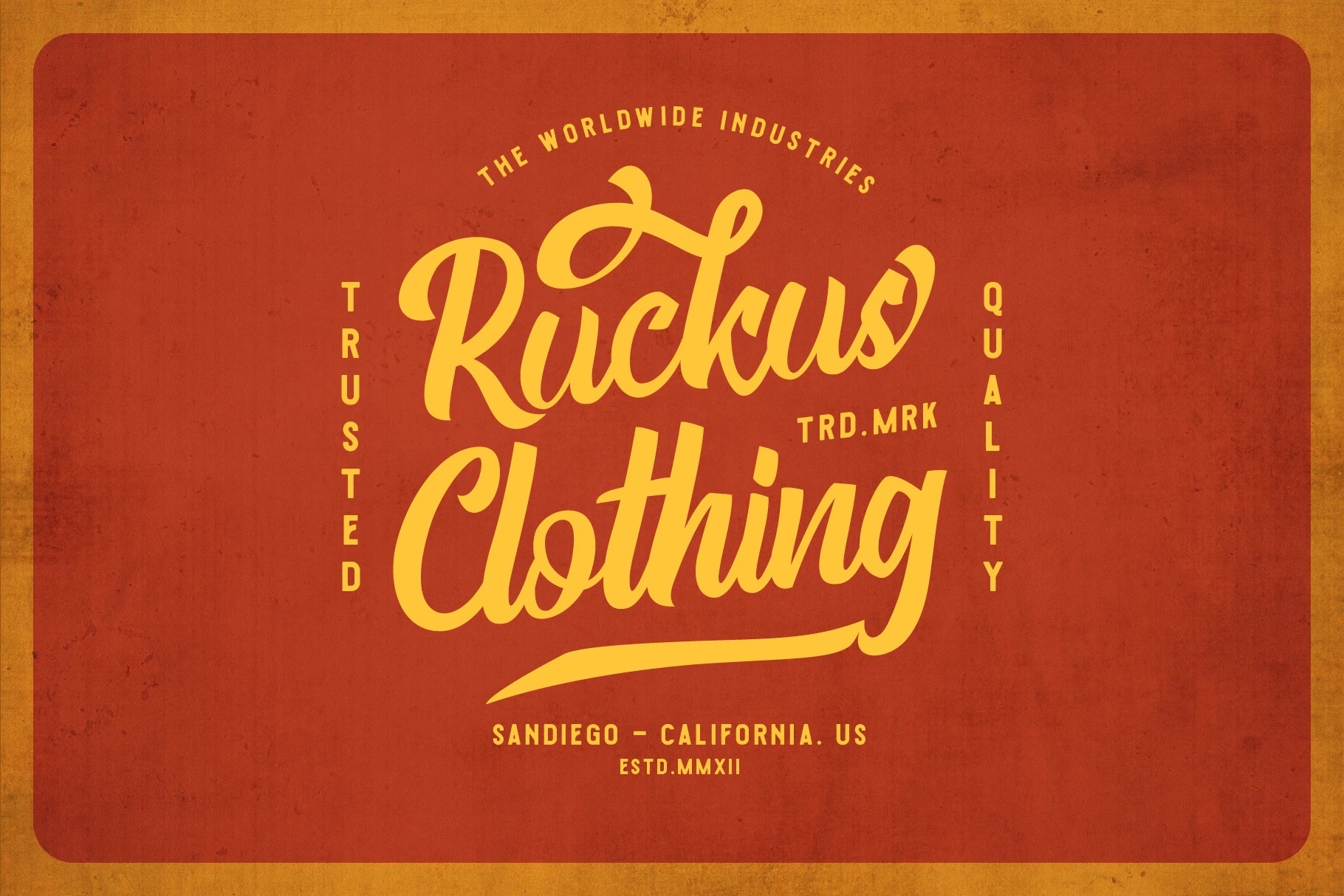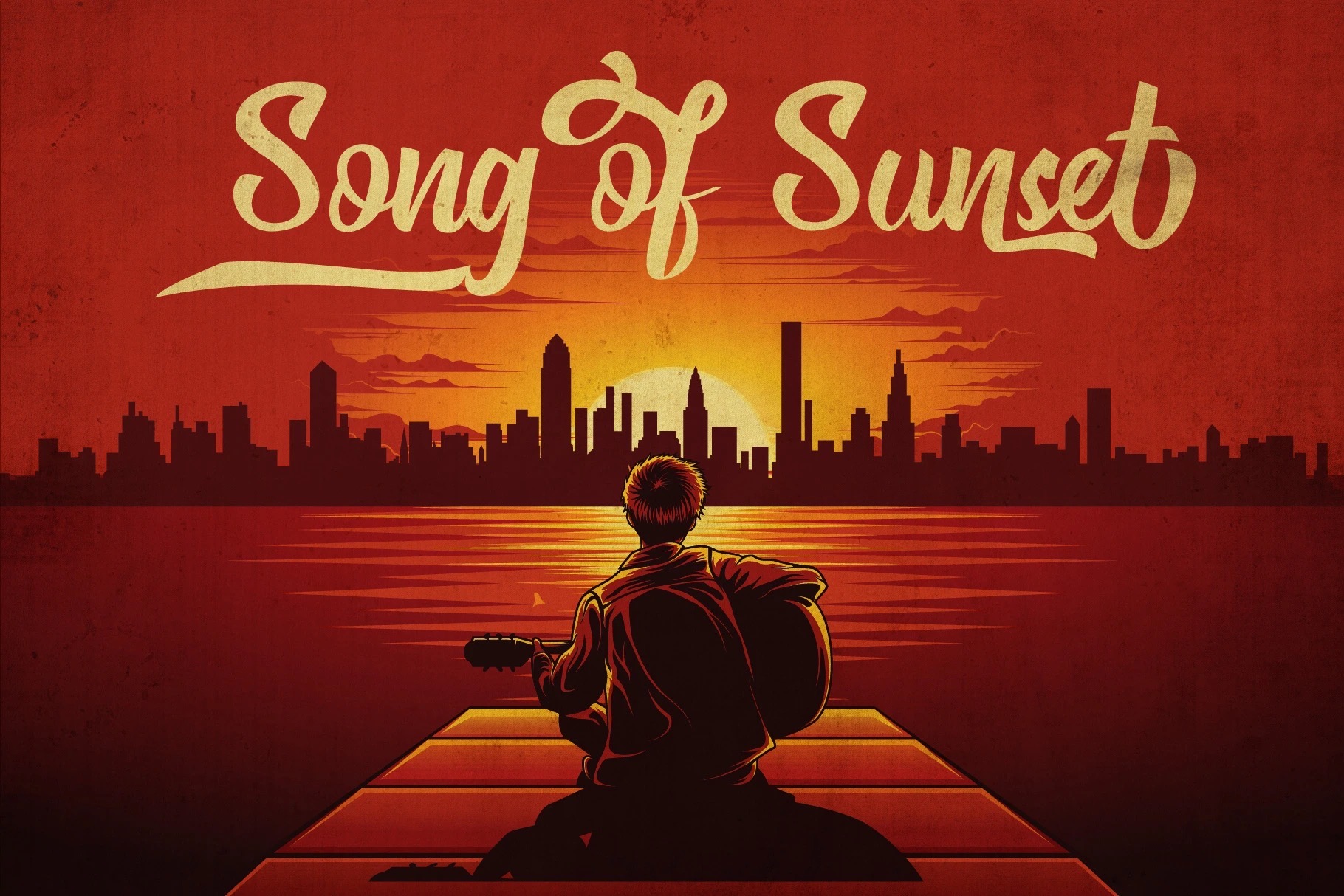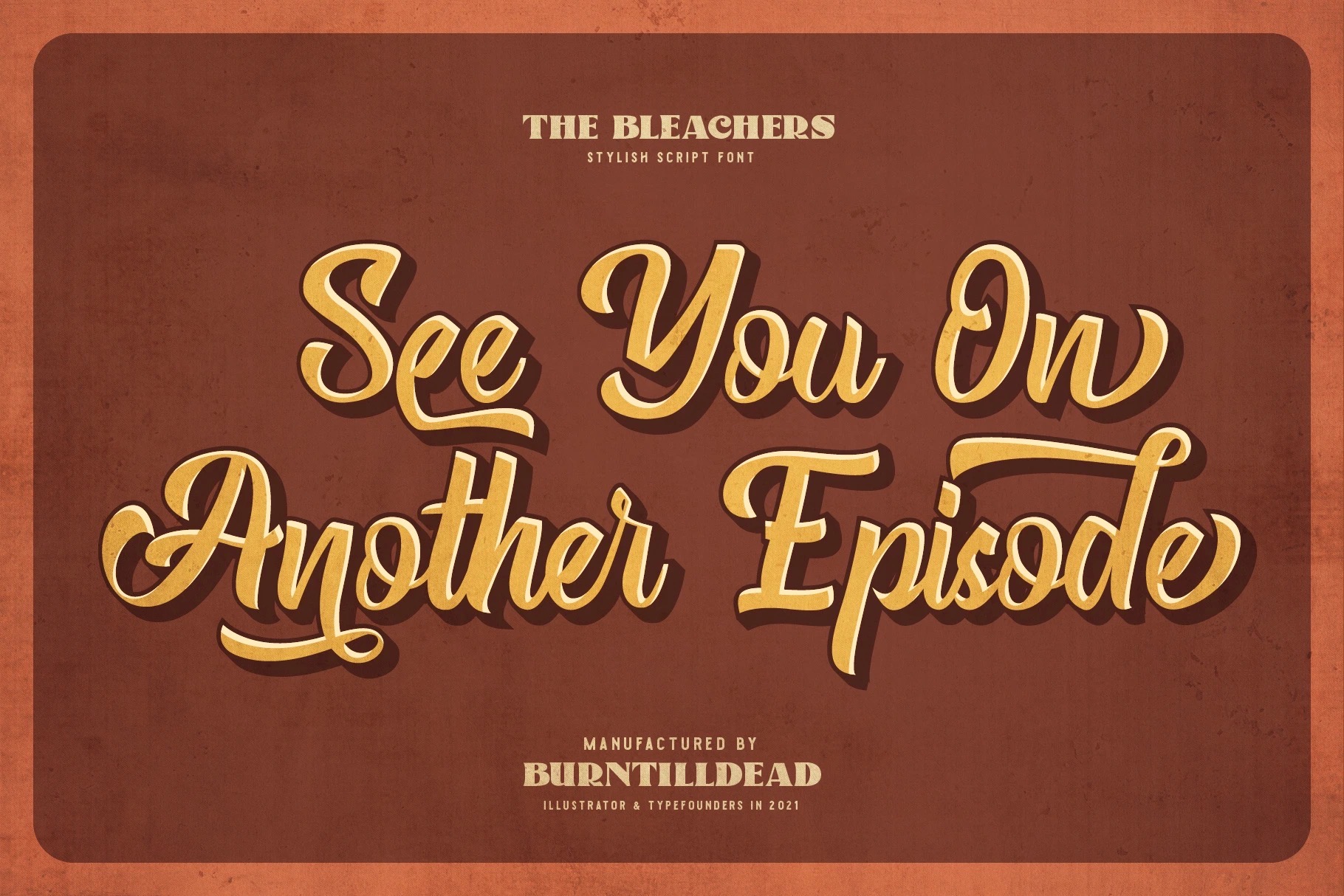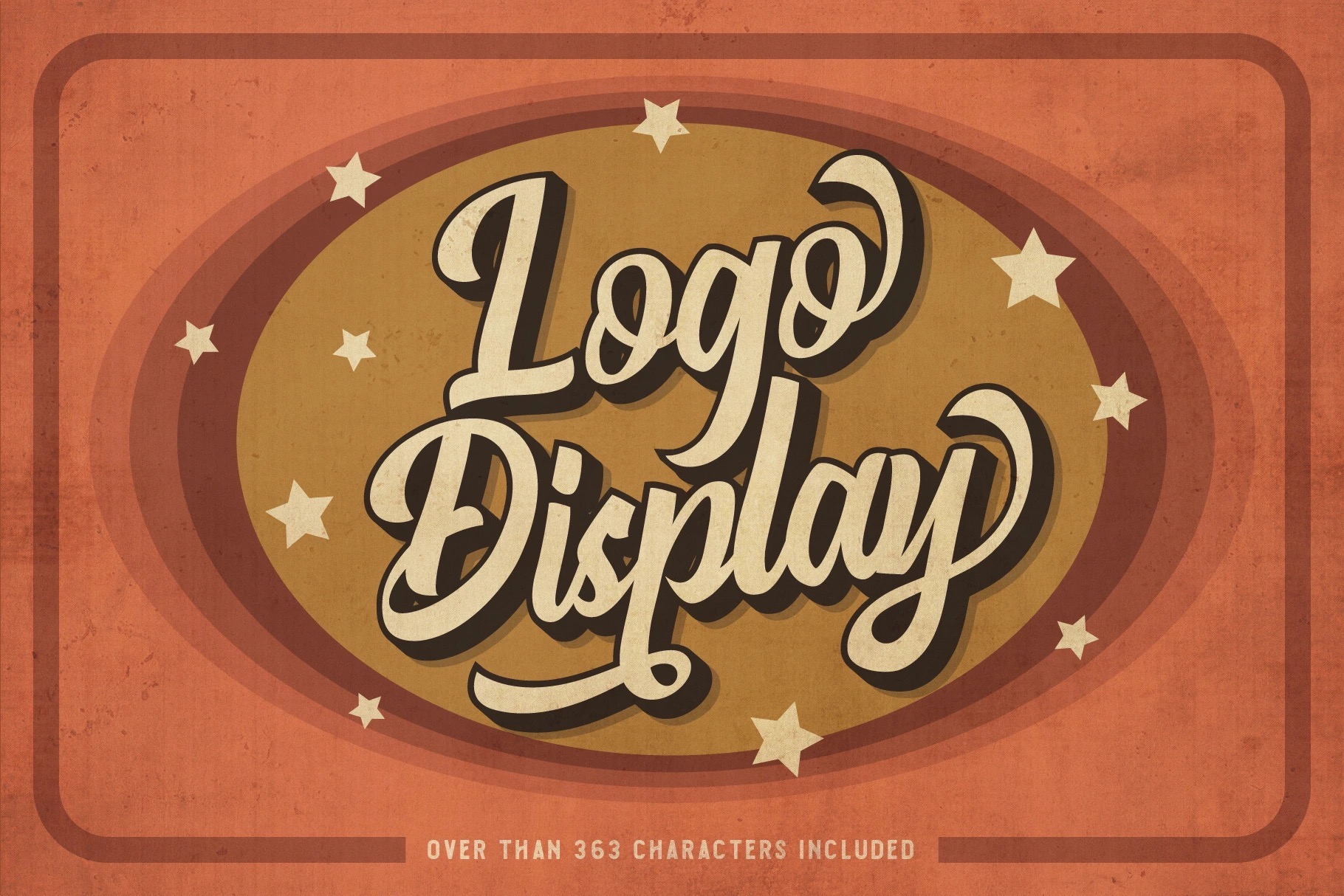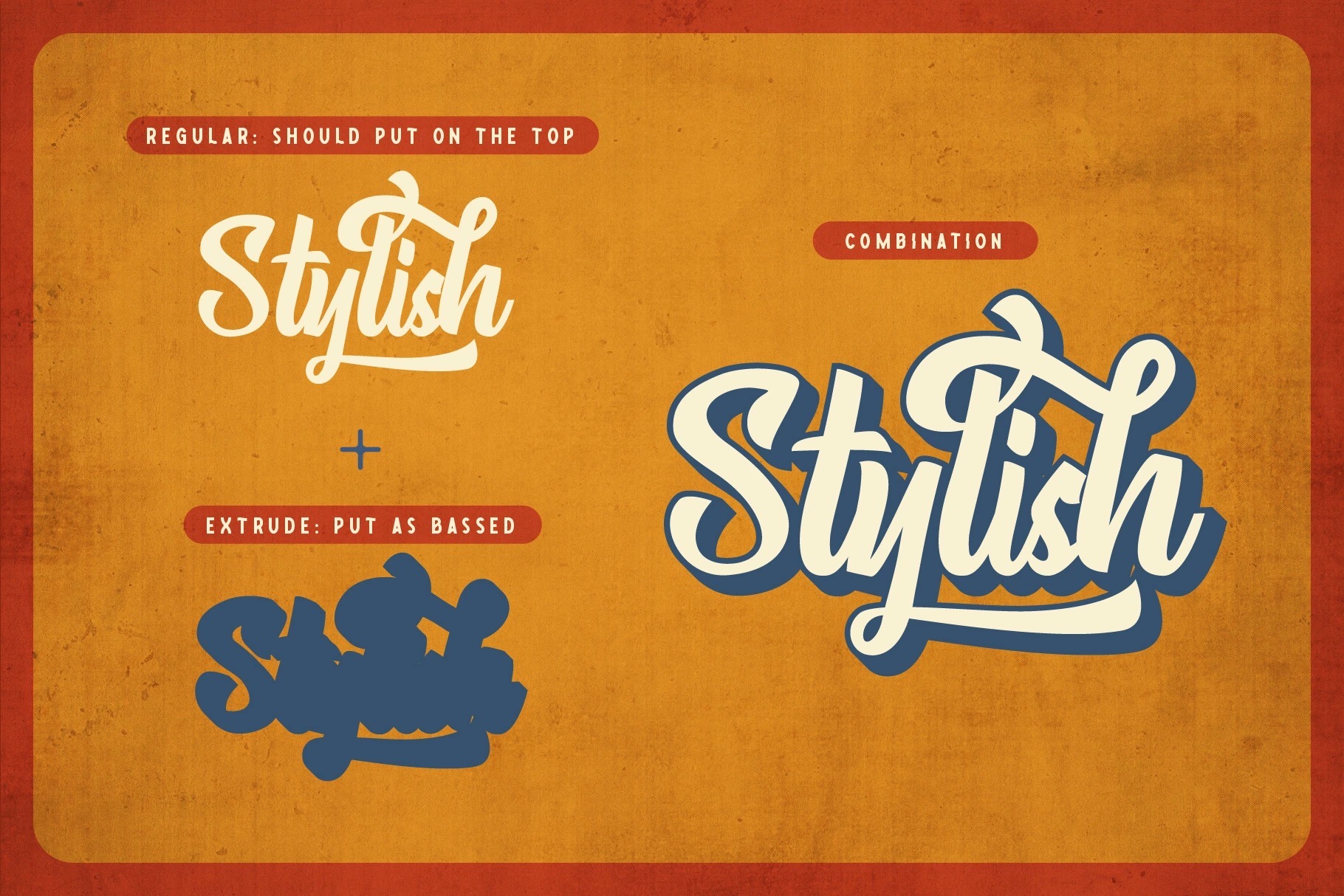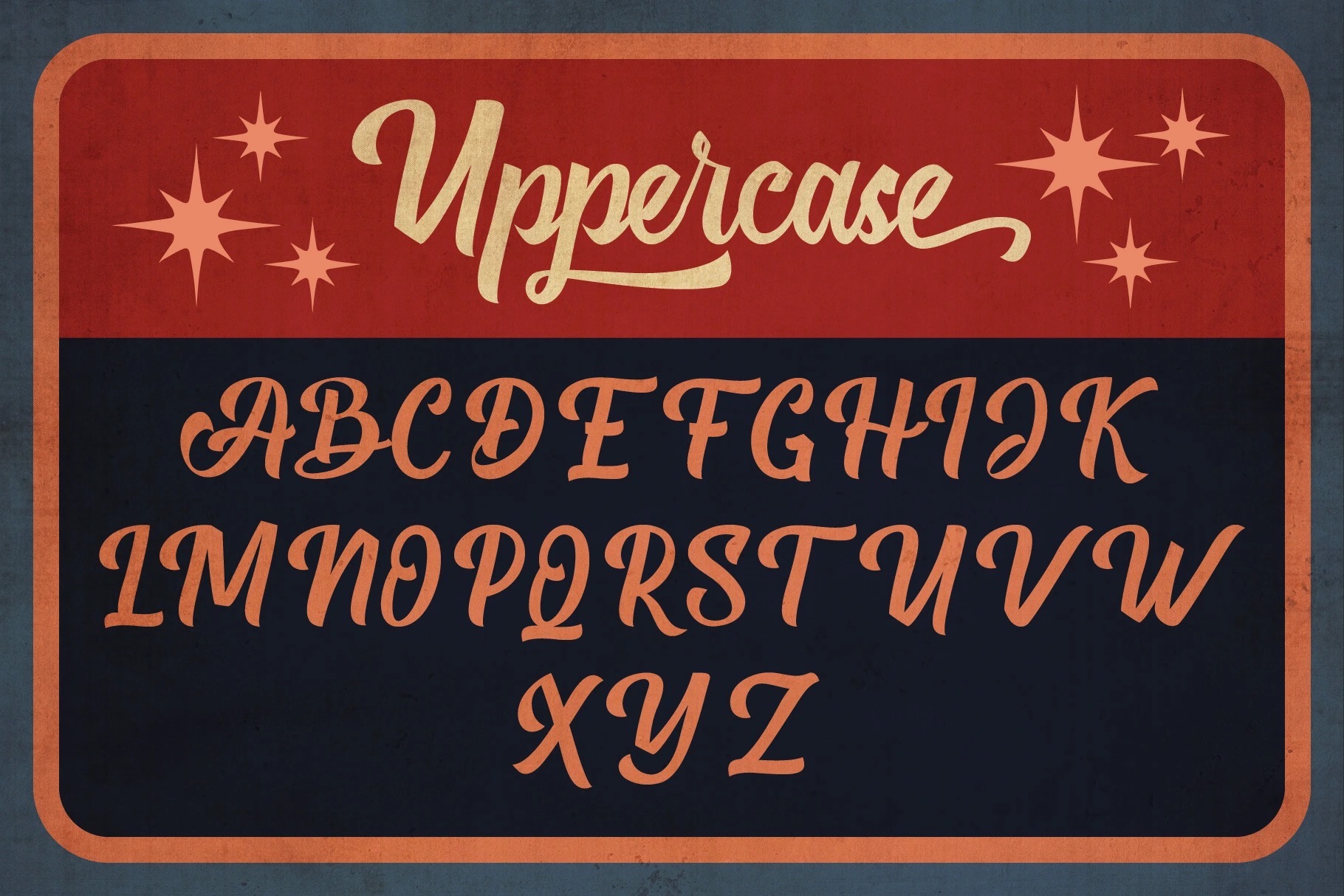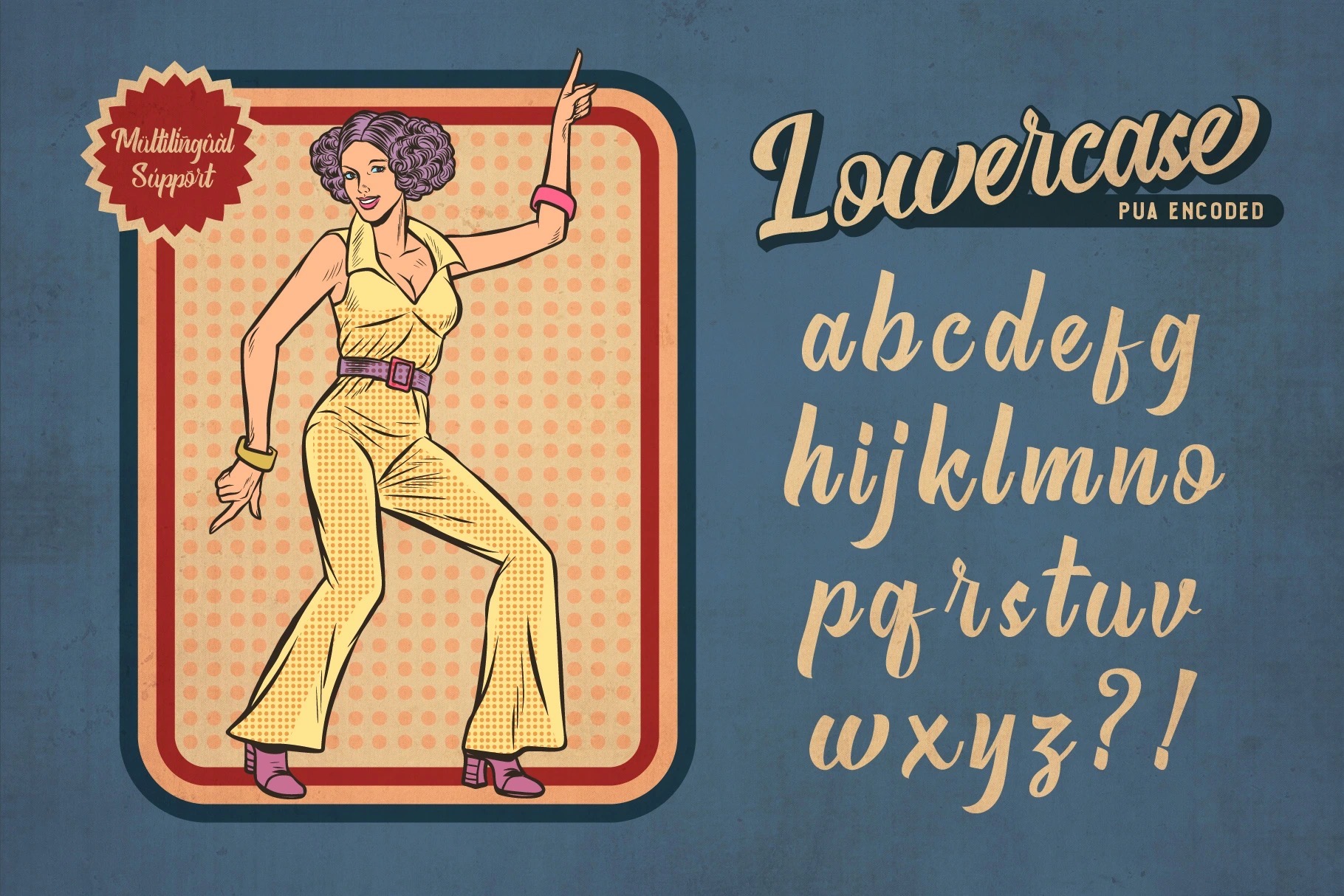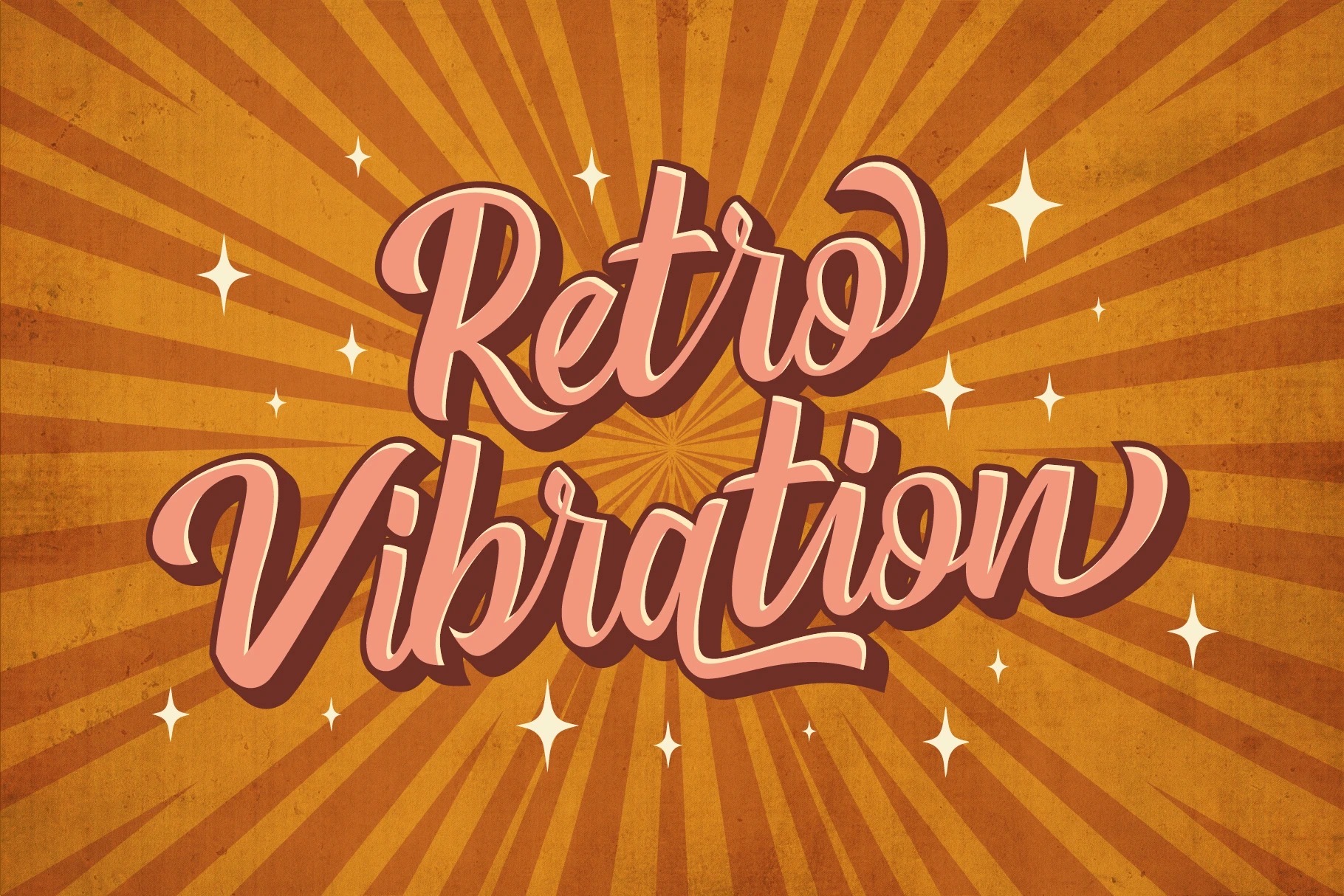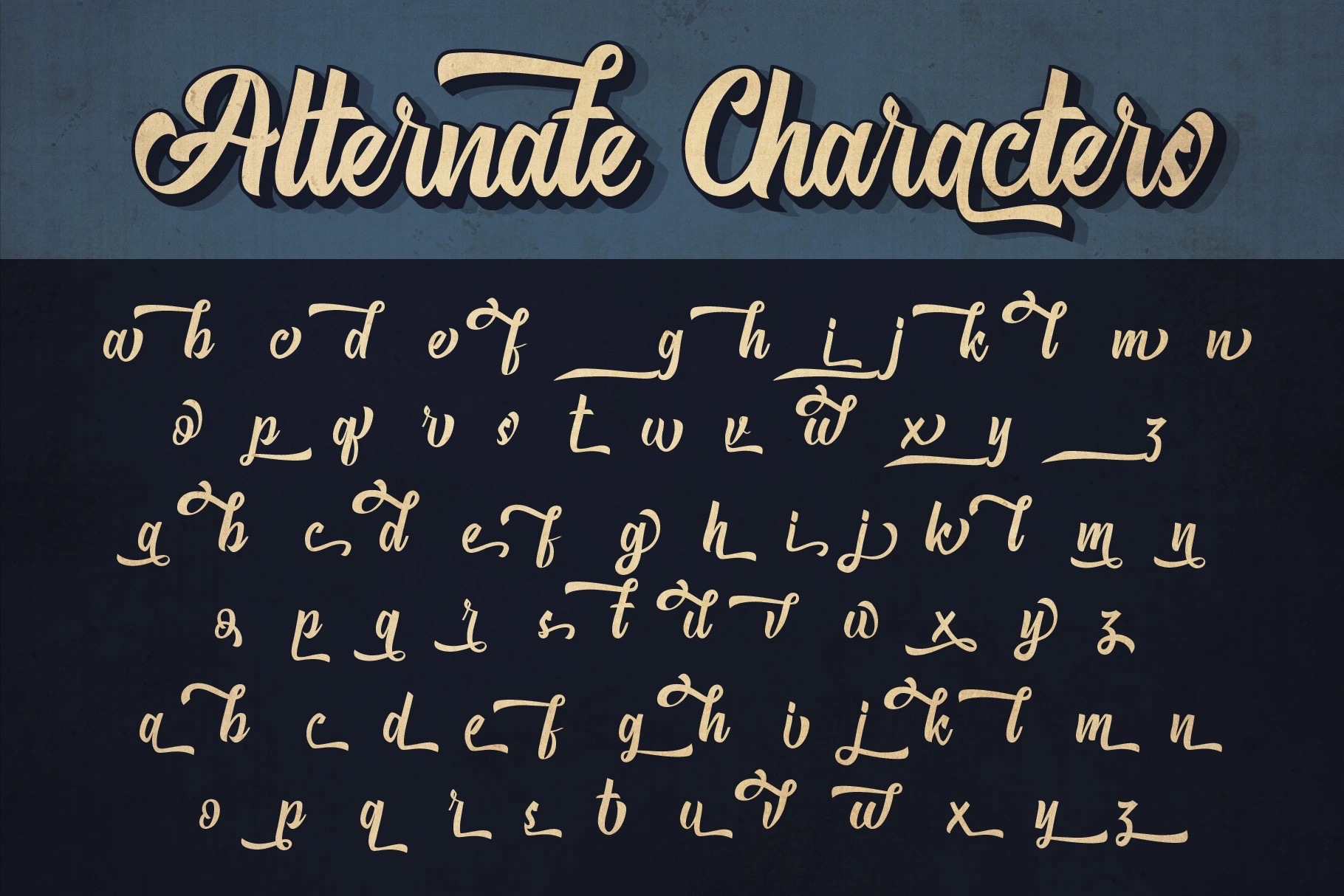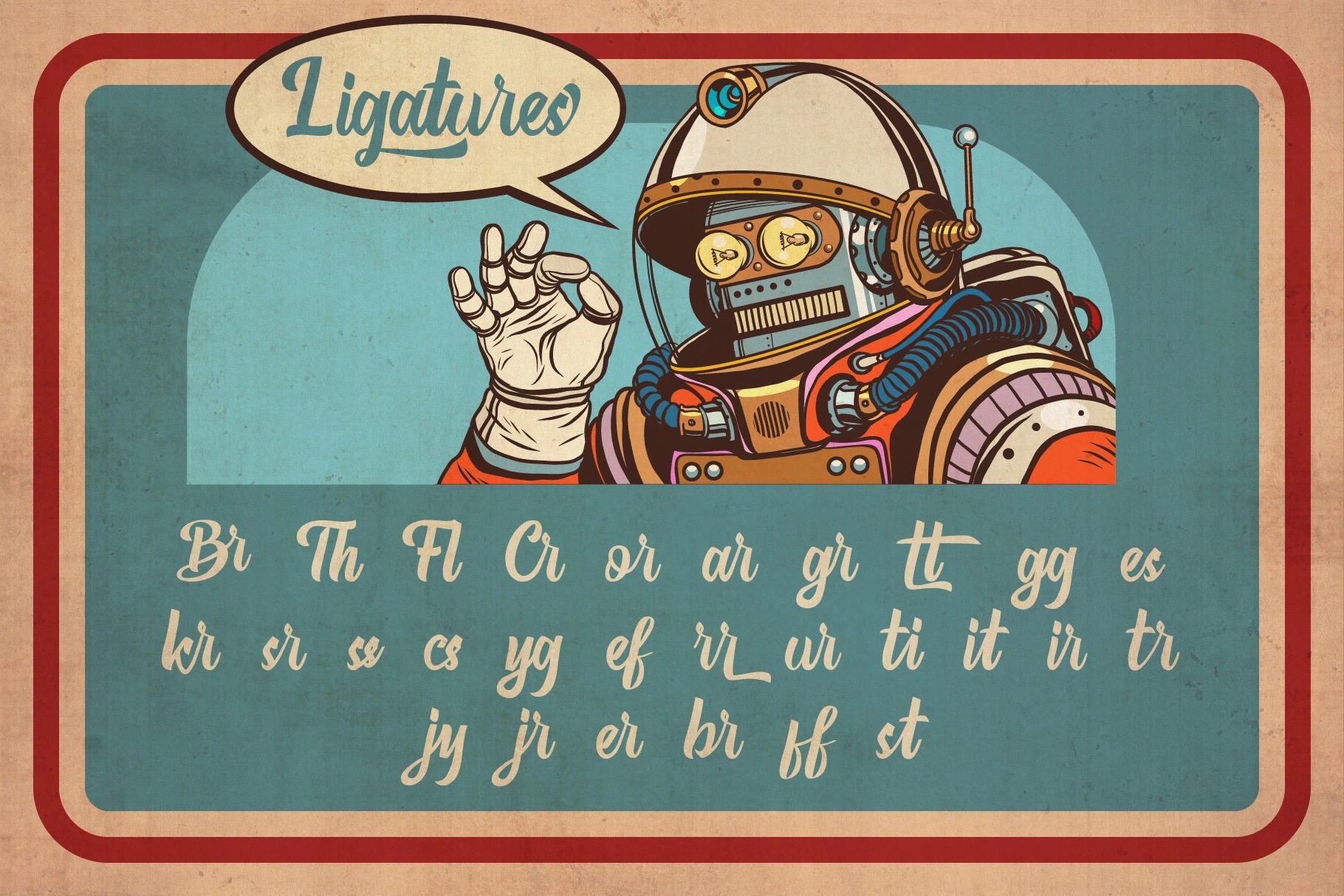
- The Bleachers
Proudly present “The Bleachers”, a retro script typeface. Inspired by 70-80’s TV show logo; the good vibration of POP culture, bold, glamour & color full.
This font is very easy to use with hundreds of stylistic alternate (ss01-ss03), ligature & powered with opentype feature.
The font really bring a good statement for your logo design and can be the image of a design. The Bleachers is very unique and easy to apply to any media; t-shirts, posters, sign boards, and social media needs.
- The Bleachers Characters Map